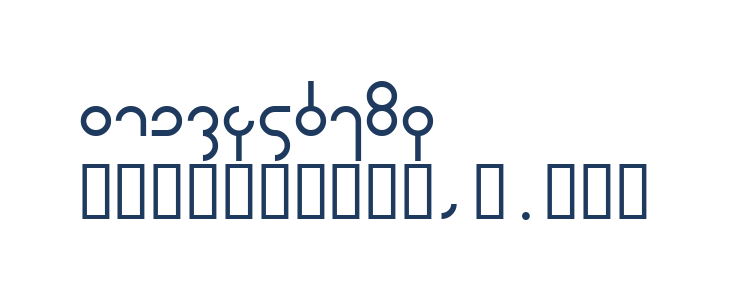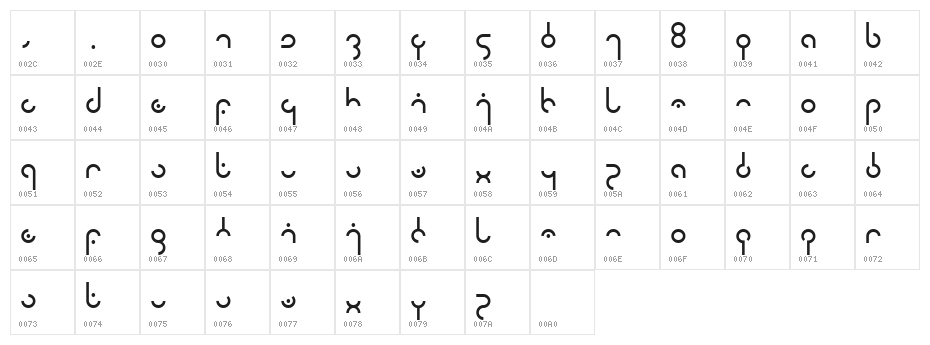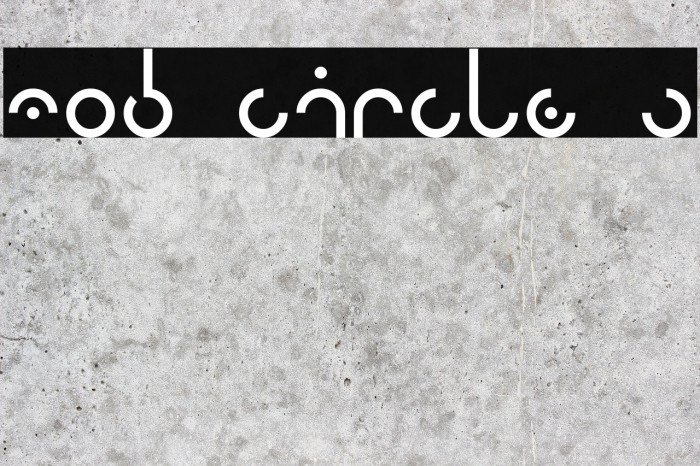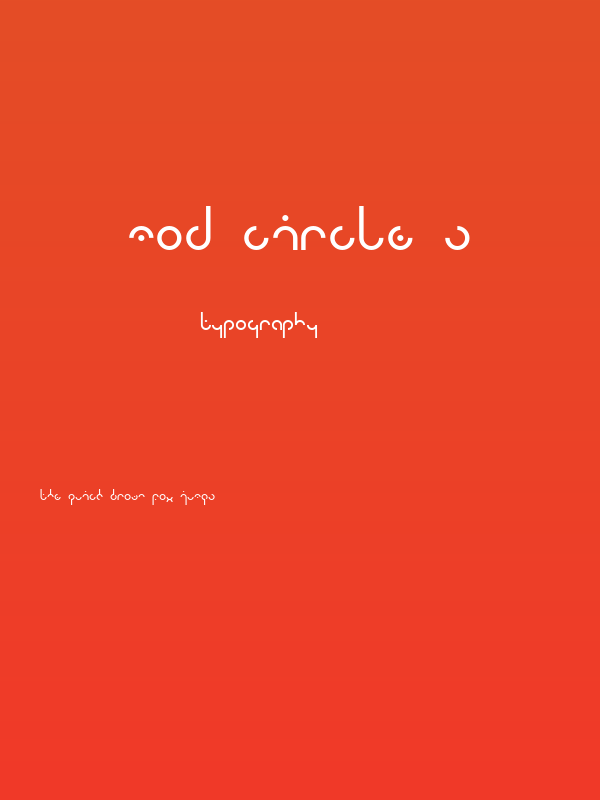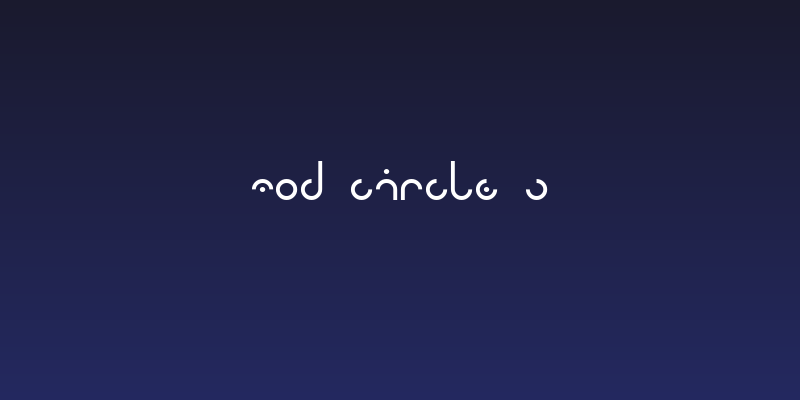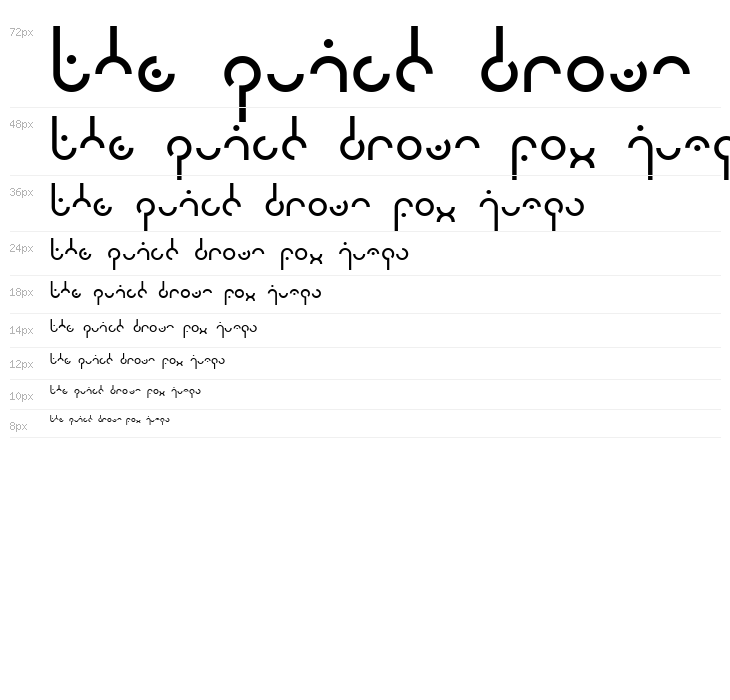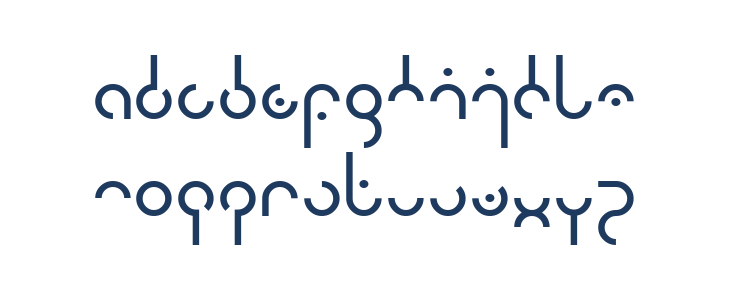
Mod Circle S Font
Mod Circle S Description
This font features a unique, modern design with a circular and geometric aesthetic. Each character is crafted with smooth curves and consistent line thickness, creating a harmonious and balanced appearance. The letters are distinct and easily recognizable, with a playful yet sophisticated style. The font's design is minimalistic, focusing on simplicity and elegance, making it suitable for various creative applications. Its clean lines and rounded forms give it a futuristic feel, while maintaining readability and visual appeal.
| Proposed Projects | Ideal for branding, logos, modern web design, and creative posters. |